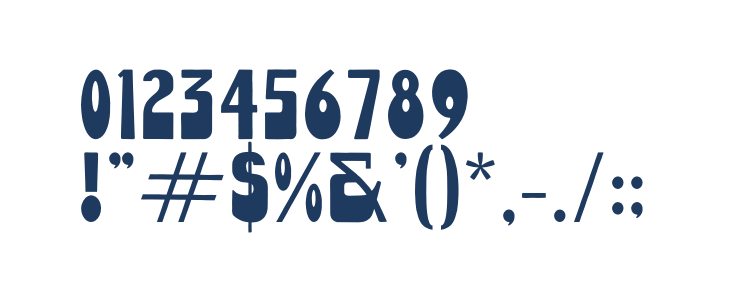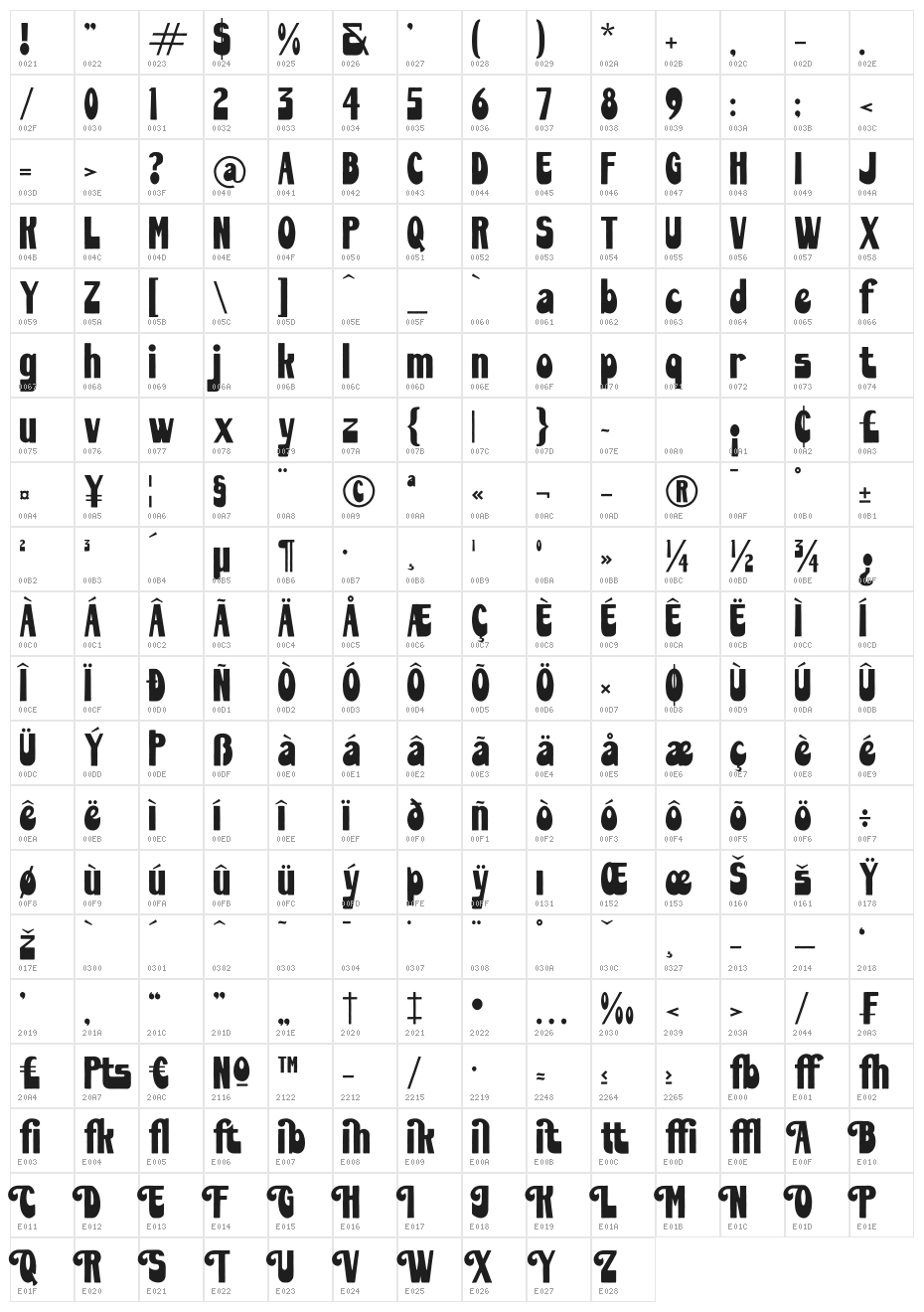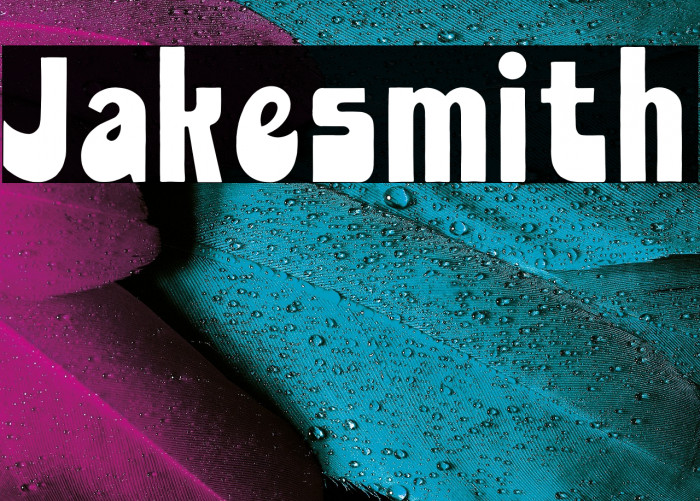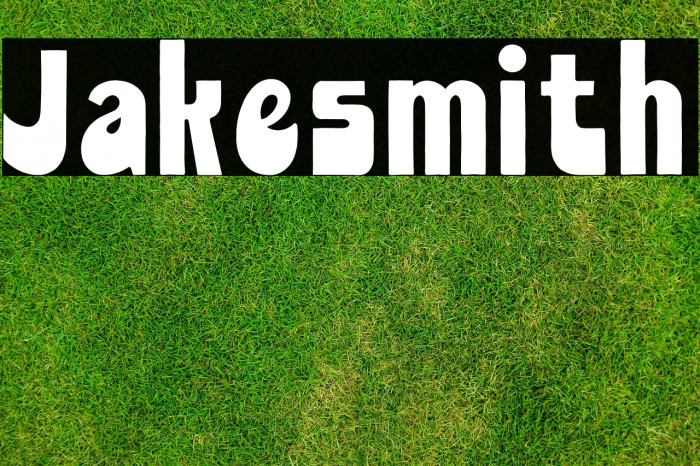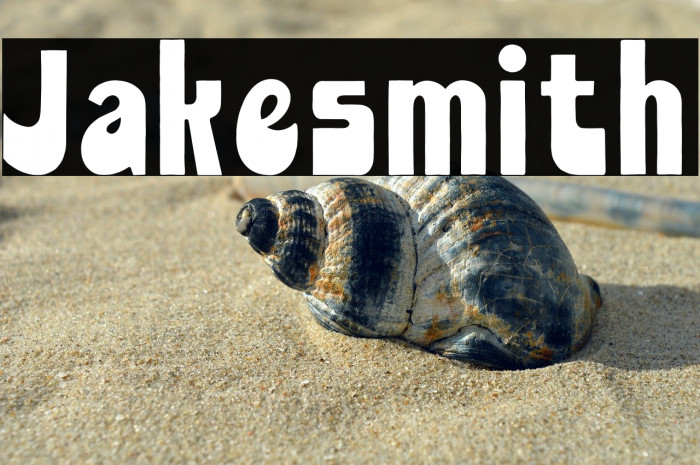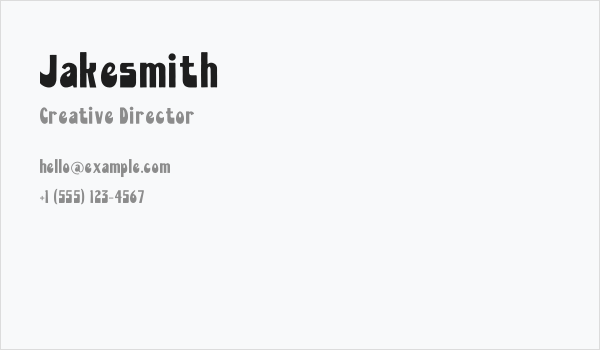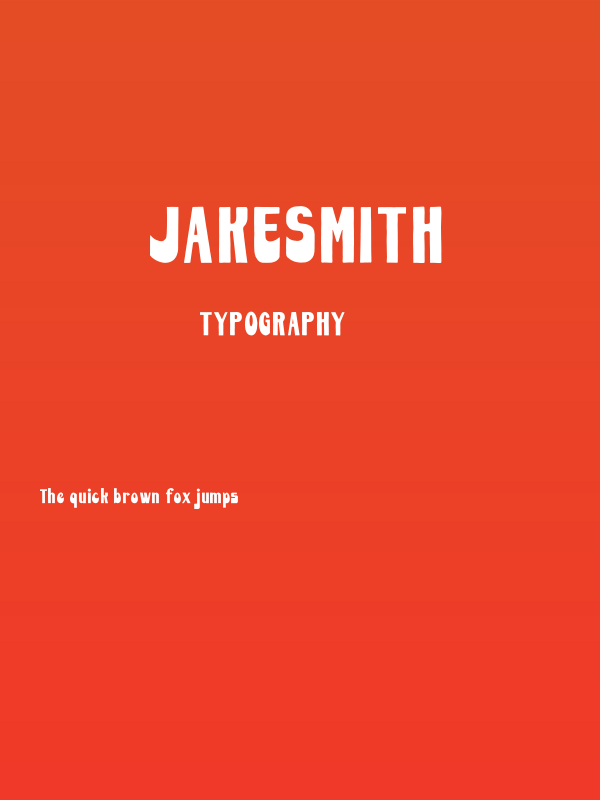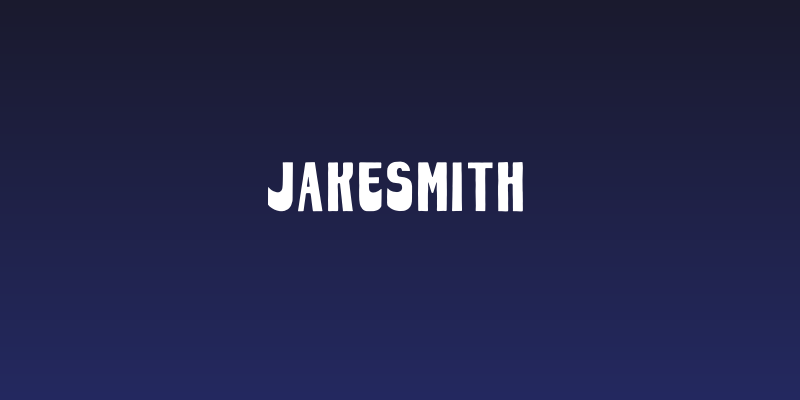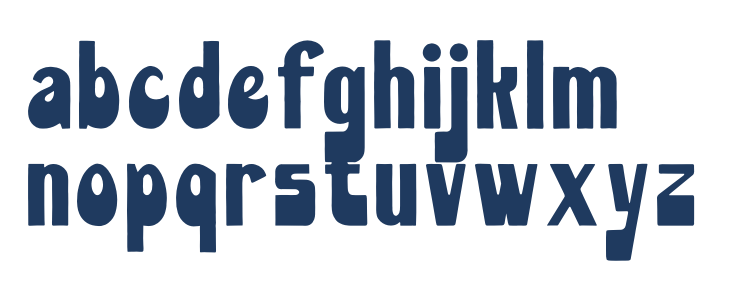
Jakesmith Font
Jakesmith Description
This font features bold, blocky characters with a playful and slightly retro aesthetic. The uppercase letters are tall and narrow, while the lowercase letters maintain a consistent width, creating a cohesive look. The numbers are uniquely styled, with some digits having exaggerated curves and angles, adding to the font's distinctive personality. Special characters are designed to match the boldness of the alphabet, ensuring uniformity across all glyphs. The overall design is eye-catching and suitable for projects that require a strong visual impact.
| Overall Style | Retro, Playful |
| Use Case | Headlines, Posters, Branding |
| Proposed Projects | Ideal for posters, headlines, branding, and any design needing a bold, impactful typeface. |